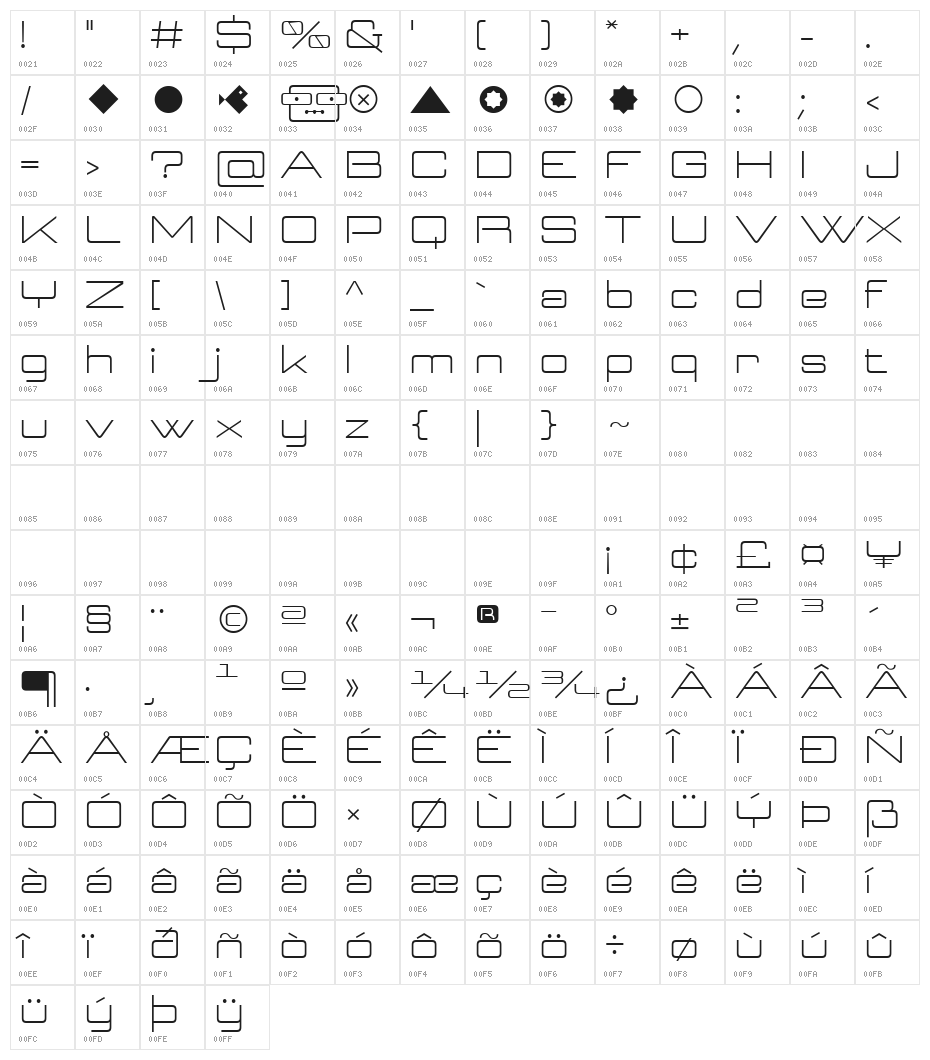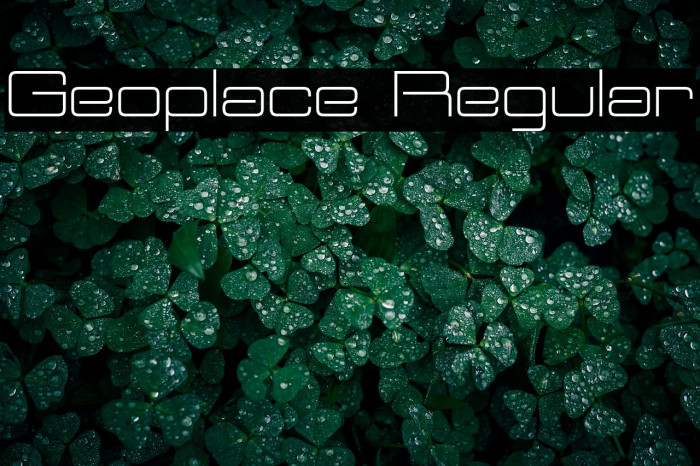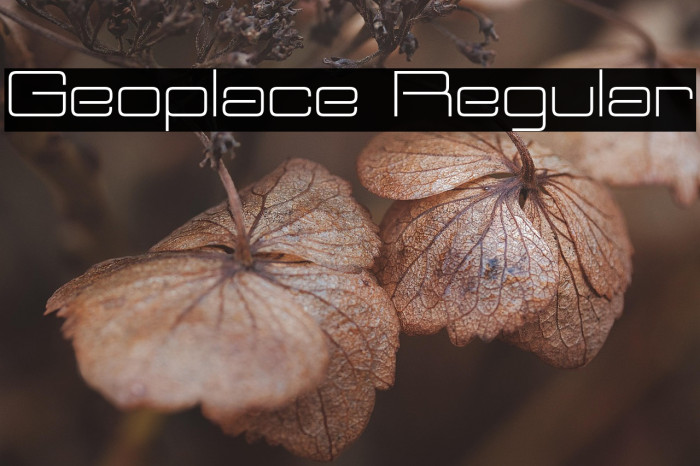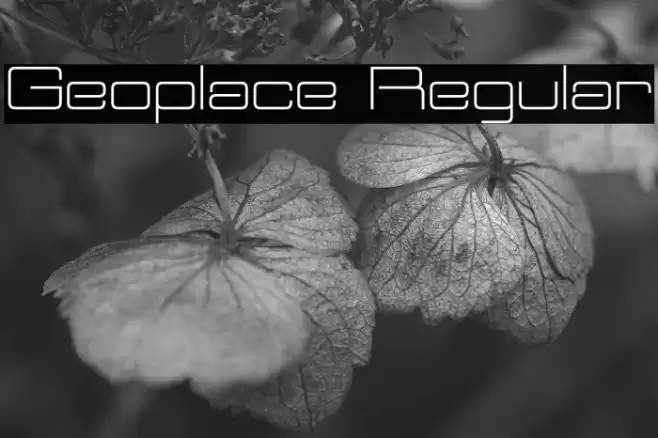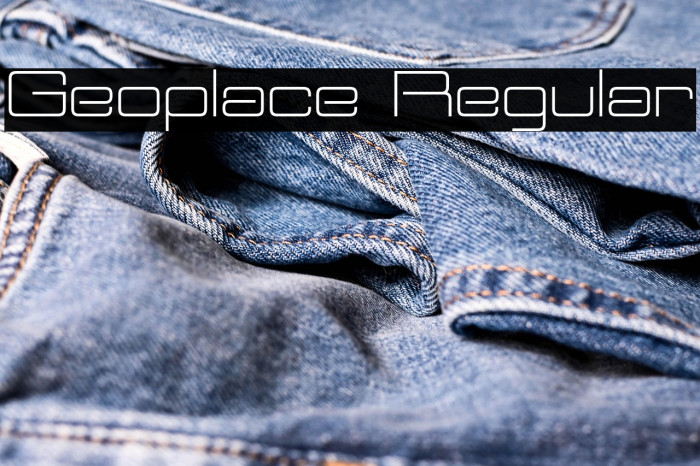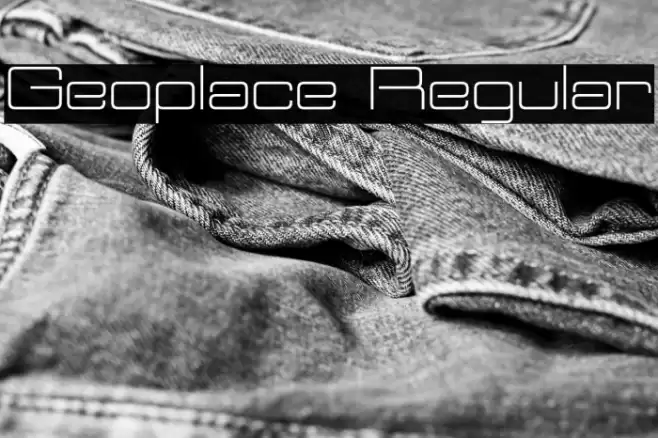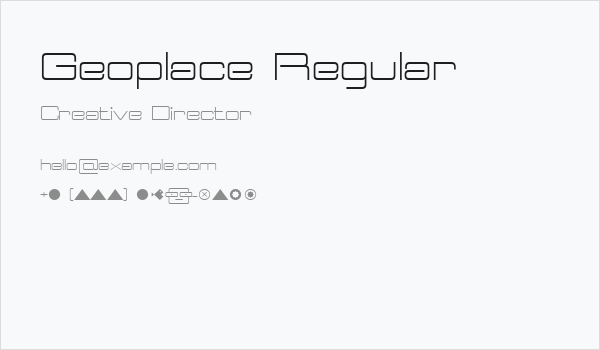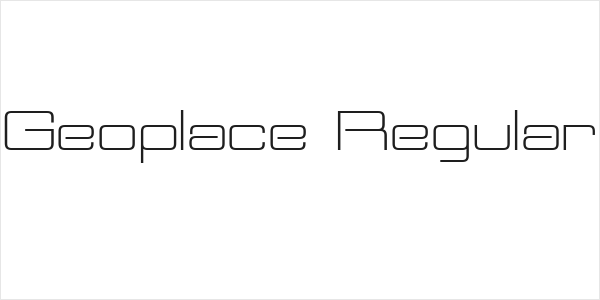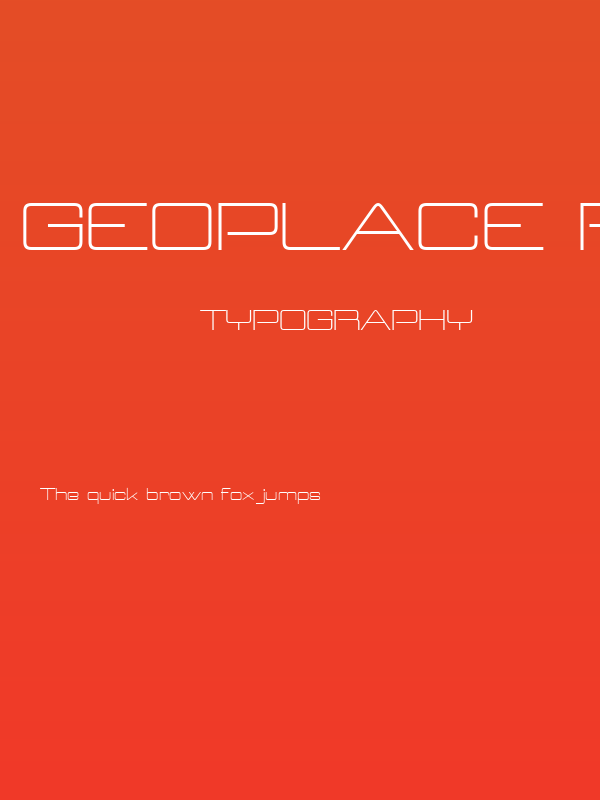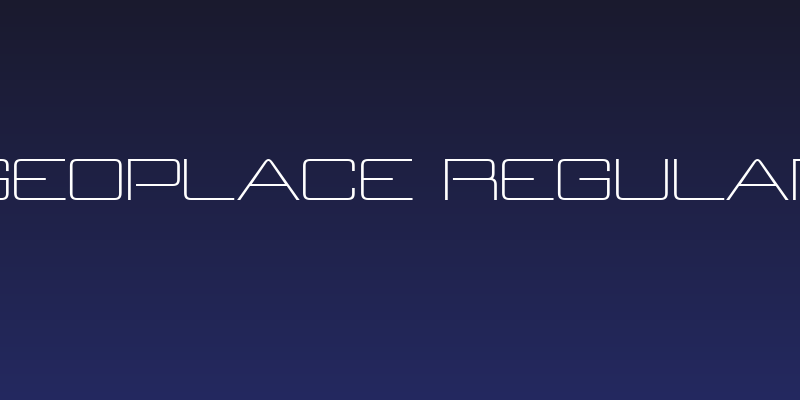
Geoplace Regular Font
An expanded proportion sans serif typeface family, imbued with futuristic urban style and technological inspiration, reflecting my passion for design and geometric precision to achieve unique aesthetics and exceptional legibility. =======================
| Projets proposés | Ideal for branding, signage, digital interfaces, and editorial design. |